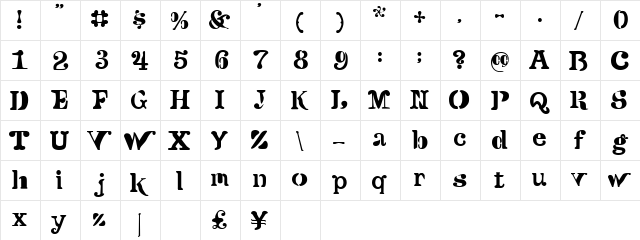
Versu Regular
Design Context for Versu Typeface
Versu is a composed and adaptable typeface that performs quietly and consistently across a wide range of design contexts.